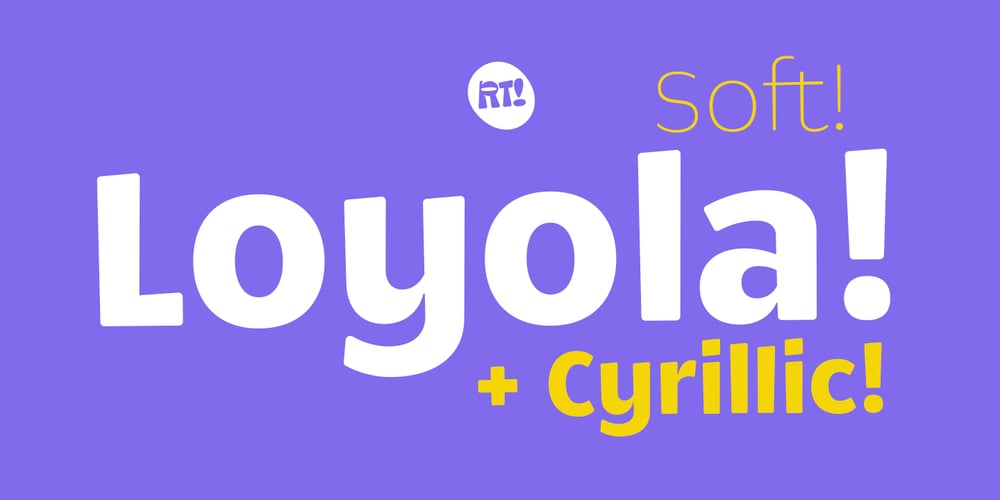
Loyola Soft Font Family was designed by Rodrigo Araya Salas, Bruno Jara Ahumada and published by RodrigoTypo. Loyola Soft contains 10 styles and family package options. The “Loyola Soft” typeface is a highly versatile and attractive option, as it presents a wide variety of 14 variants, making it a font with great potential for various projects and applications. By having support for the Cyrillic alphabet, this font becomes even more useful, allowing its use in multiple languages and regions where this writing system is used.